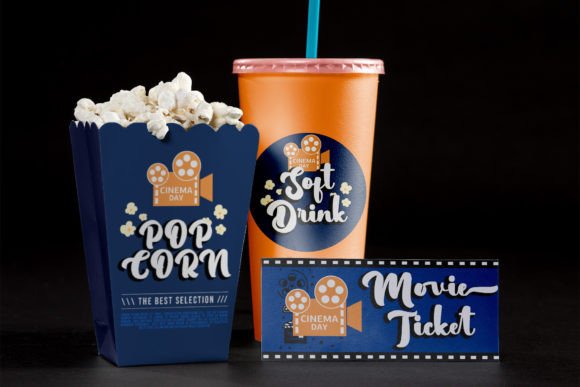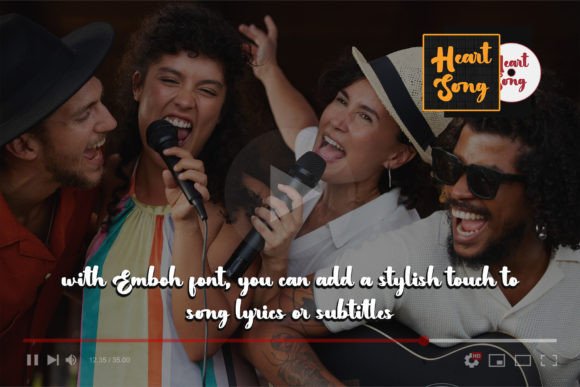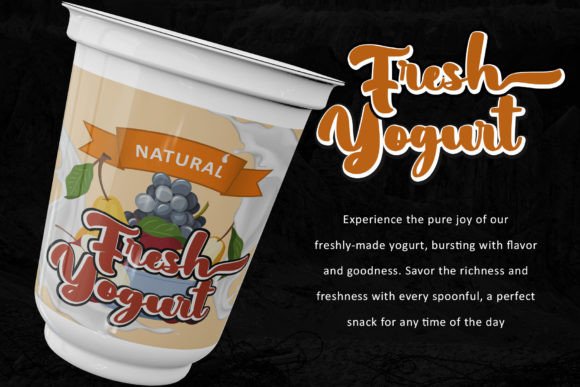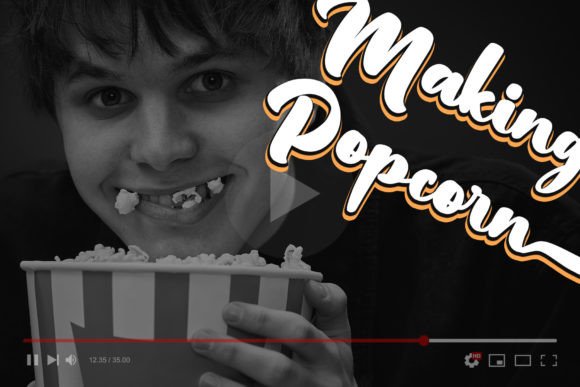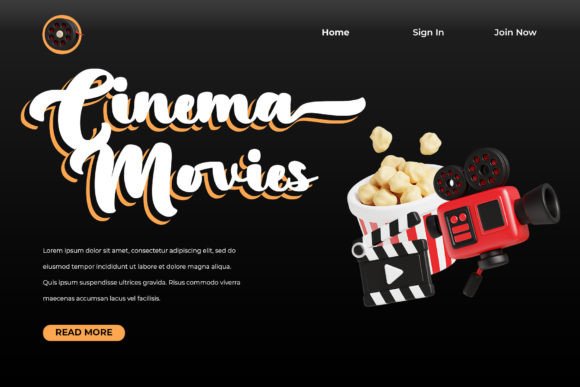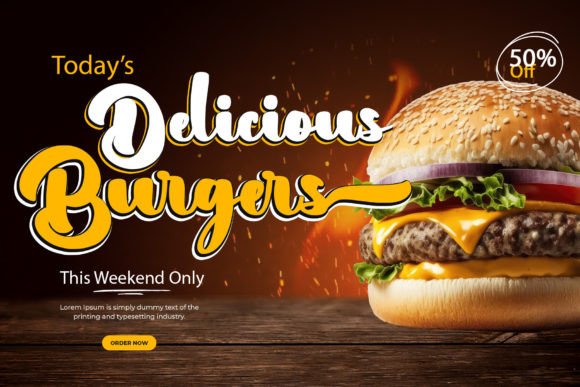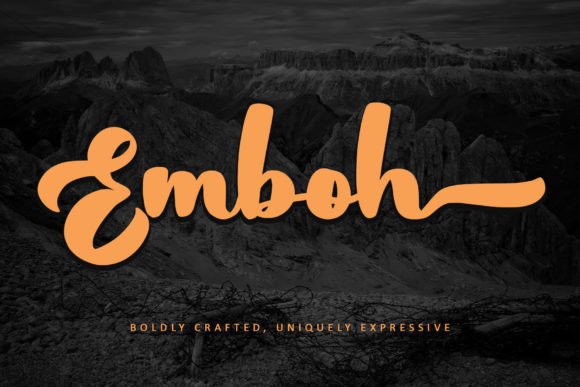
Introducing Emboh Font: The Epitome of Modern Sophistication
In the realm of typography, fonts play a pivotal role in defining the aesthetic and tone of any design project. Among the myriad of fonts available, Emboh stands out as a bold handwritten font that embodies modern sophistication. With its striking strokes and dynamic flair, Emboh seamlessly blends casual charm with a touch of boldness, making it an indispensable addition to any designer’s toolkit.
The Essence of Emboh Font
Emboh is not just a font; it’s an experience. Its bold, handwritten strokes exude a sense of confidence and modernity, making it perfect for designs that demand attention. Whether you’re crafting a standout headline or looking to add a personal touch to your project, Emboh delivers with its unique charm and versatility. The font’s design is meticulously crafted to ensure that it brings a fresh and contemporary feel to any design, setting it apart from more traditional fonts.
Key Features of Emboh Font
• Bold and Dynamic Strokes: Emboh’s bold strokes are its defining feature, providing a sense of dynamism and energy to any design.
• Casual yet Sophisticated: The font strikes a perfect balance between casual charm and sophistication, making it suitable for a wide range of design projects.
• PUA Encoding: Emboh boasts PUA (Private Use Area) encoding, which ensures seamless access to a plethora of glyphs and swashes. This feature allows designers to explore a vast range of creative possibilities, making their designs truly unique.
• Elegance and Ease: Emboh combines elegance with ease of use, making it an excellent choice for both beginners and seasoned designers.
Applications of Emboh Font
The versatility of Emboh makes it suitable for a myriad of design applications. Here are some of the areas where Emboh truly shines:
• Headlines and Titles: Emboh’s bold nature makes it perfect for headlines and titles, where making a statement is crucial.
• Branding and Logos: The font’s unique and memorable style is ideal for branding and logos, helping businesses stand out in a crowded market.
• Invitations and Cards: Emboh adds a personal touch to invitations, greeting cards, and other personal projects, making them more special.
• Digital and Print Media: Whether it’s for a website, social media post, or print material, Emboh’s adaptability ensures it looks great across all mediums.
Why Choose Emboh Font?
In a world where design trends are constantly evolving, having a font that can keep up is invaluable. Emboh is more than just a font; it’s a design solution that offers:
• Uniqueness: Emboh’s distinctive style ensures your designs stand out from the crowd.
• Versatility: Its adaptability across various design projects and mediums makes it a versatile addition to any designer’s toolkit.
• Modern Appeal: Emboh’s contemporary feel keeps your designs looking current and fresh.
Emboh font is a game-changer for designers and crafters looking to elevate their projects with a touch of modern sophistication. Its bold, dynamic strokes, combined with its casual yet elegant charm, make it an essential tool for creating standout designs. With PUA encoding offering access to a wide range of glyphs and swashes, Emboh provides the perfect blend of creativity and functionality. Whether you’re a professional designer or a DIY enthusiast, Emboh is poised to become your go-to font for projects that demand a bit of flair and a lot of personality.